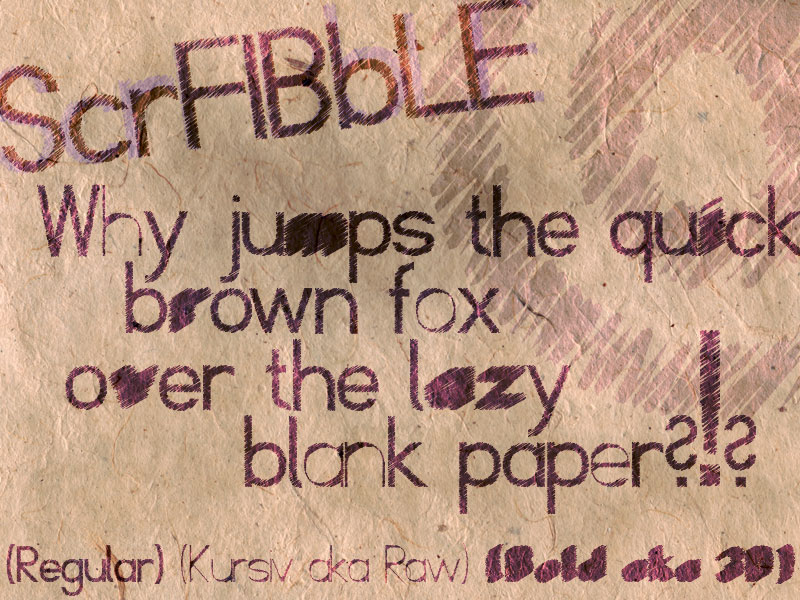
Font name: | ScrFIBbLE |
Author: | Manuel Viergutz | Typo Graphic Design |
Note by Manuel Viergutz | Typo Graphic Design | |
ScrFIbbLE is a Font with pencil feeling. Scribble Style for Headlines and Poster. Huge letters (from 40pt) ScrFIbbLE is created from the GPL Font "Fibel". THX at Peter Wiegel INFO If you want to use this for commercial projects, please contact me: manuel.viergutz[at]gmx.de or donate an amount greater-than-or-equal EUR 14/ $ 19. (for commercial licence) I also appreciate it if you send me links/images of your (non)-commercial work featuring this font. |